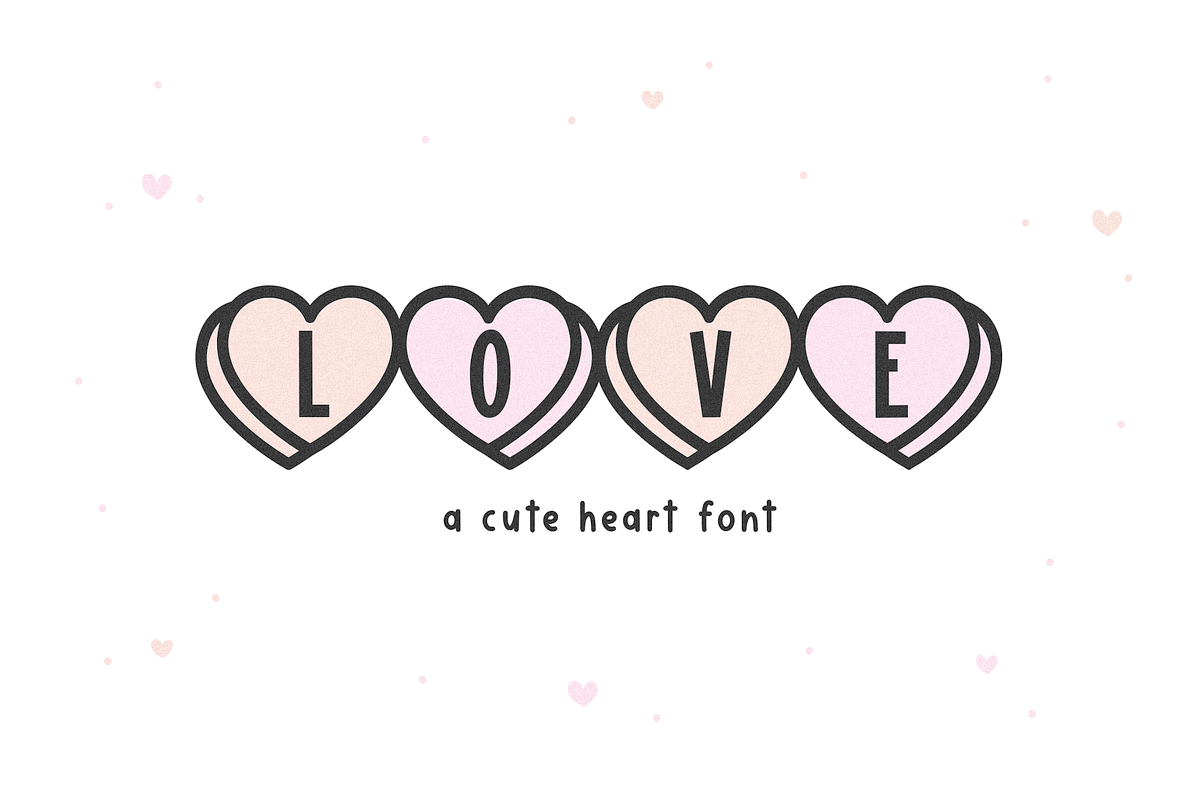
Love Hearts Font Free Download is an adorable, love-filled typeface decorated with playful heart elements. Perfect for Valentine’s Day designs, wedding invitations, romantic quotes, greeting cards, and kids’ projects, this font adds a sweet and affectionate touch to every word.
Its bubbly curves and heart accents make it ideal for spreading joy, love, and cuteness in your creative work. Whether you're creating a personalized gift or a flirty social media post, Love Hearts captures the emotion beautifully. Love Hearts Font Free Download gives you the chance to test it in personal projects before investing in a commercial license.
Fall in love with your designs using Love Hearts — the cute heart font that’s made for sweet moments and heartfelt messages.